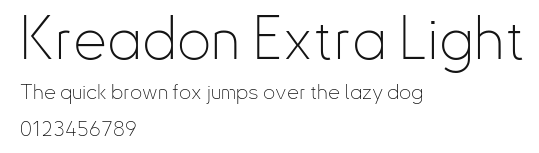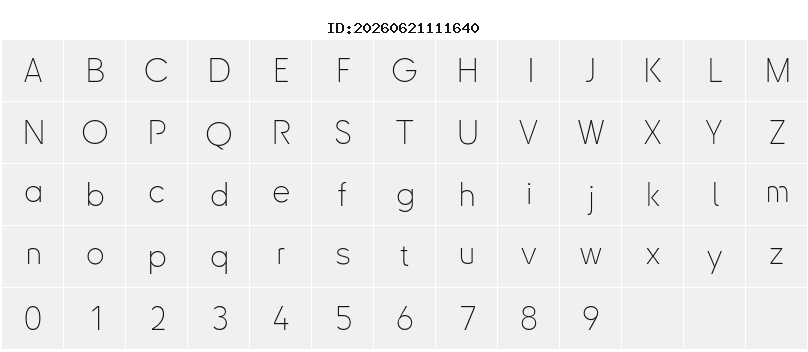
• Font Name: Kreadon Extra Light
• Full Font Name: Kreadon Extra Light
• Designer: Reiya WATANABE
• Manufacturer: StudioGnu
About Kreadon Extra Light.ttf
Kreadon Extra Light.ttf is a modern, elegant sans-serif font designed for ultimate readability and visual harmony. Perfect for branding, headlines, web design, and print materials.